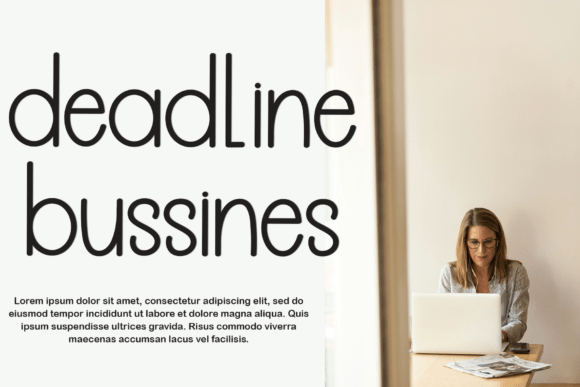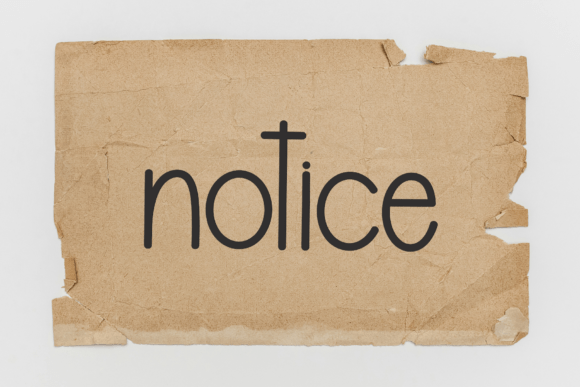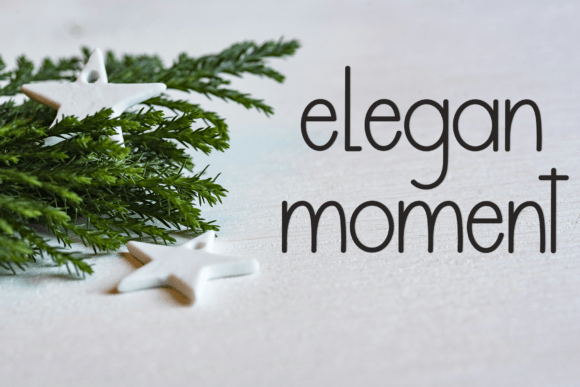
Mango Magic Font – Free Download
Introduction to Mango Magic Font
Mango Magic is a festive and merry typeface that captures the spirit of the holiday season.